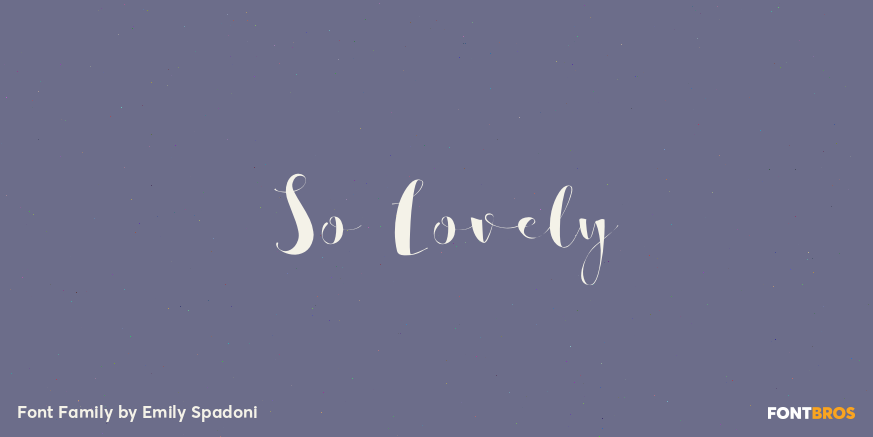
Introducing So Lovely Script! An imperfect hand-inked handwriting script. The combination of bold curves with super-fine lines trailing as if your hand just barely lifted from the paper. So Lovely doesn\’t miss a single detail, alternate characters are…